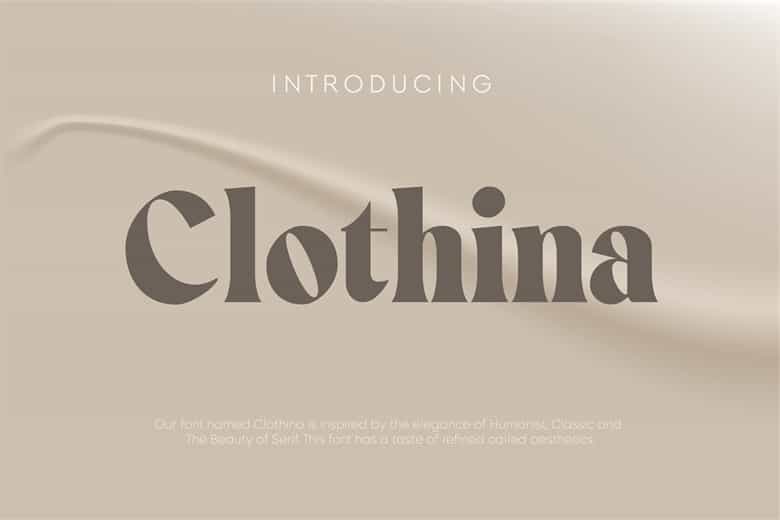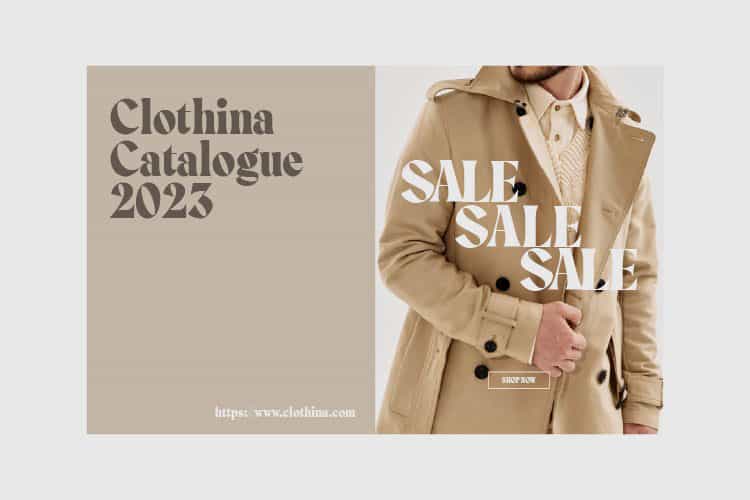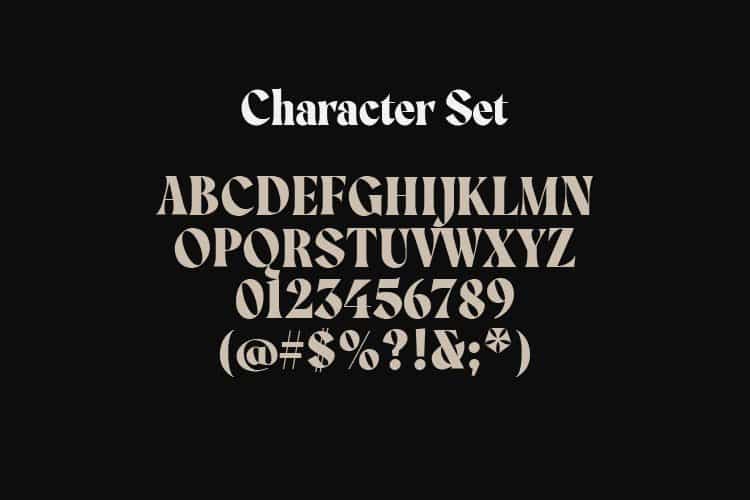
Clothina is a modern sophisticated and timeless serif font elegant and classic. This font has a taste of refined called aesthetics inspired by humanist, classic and the beauty of serif.